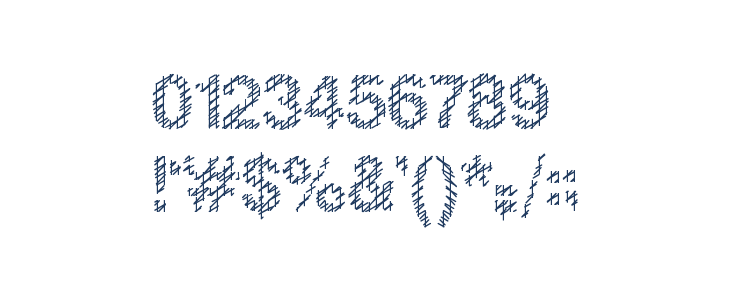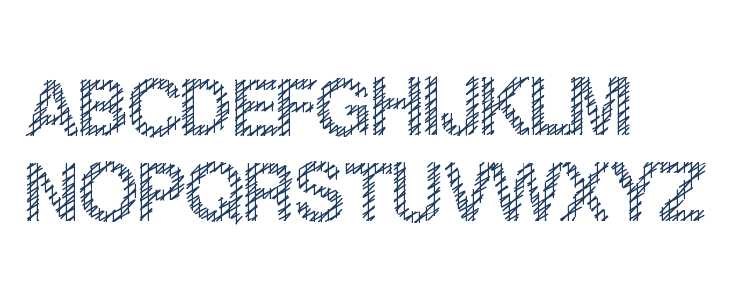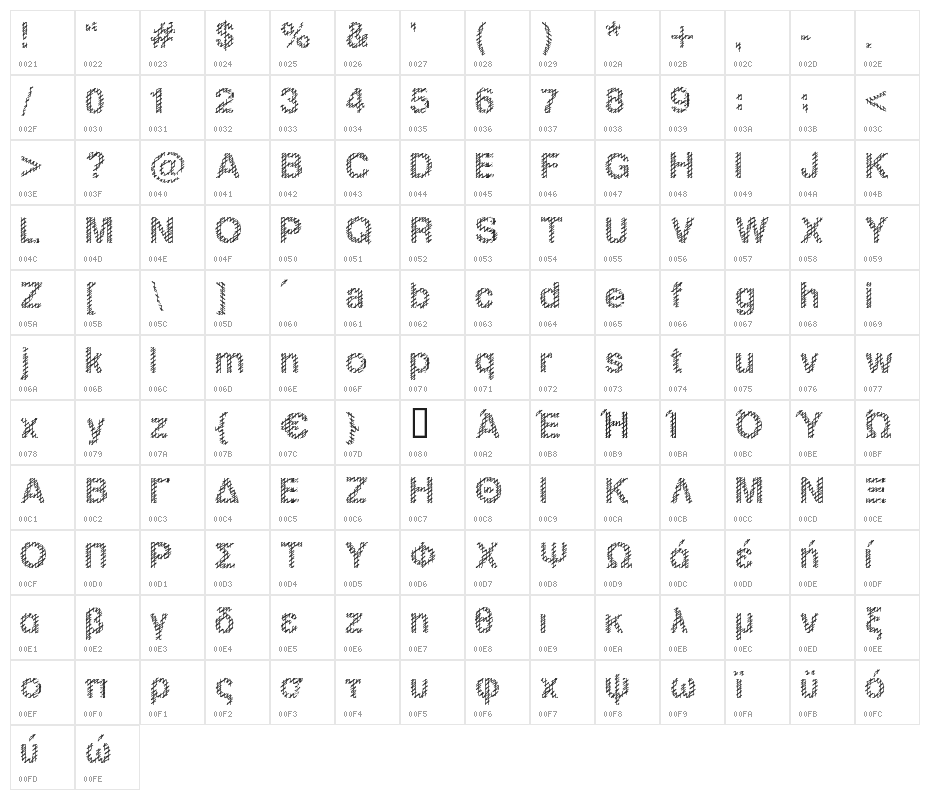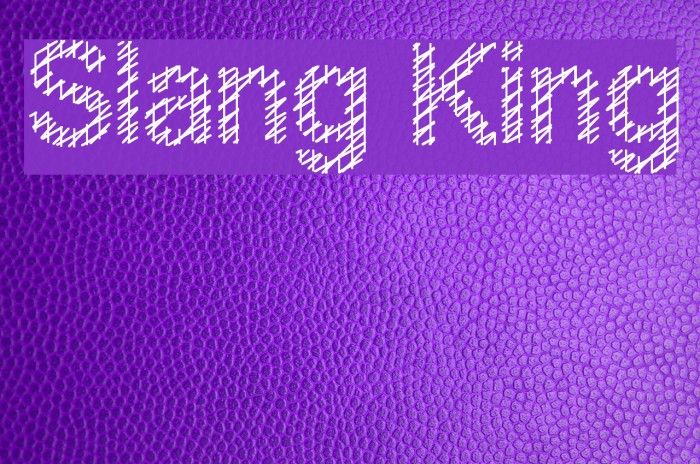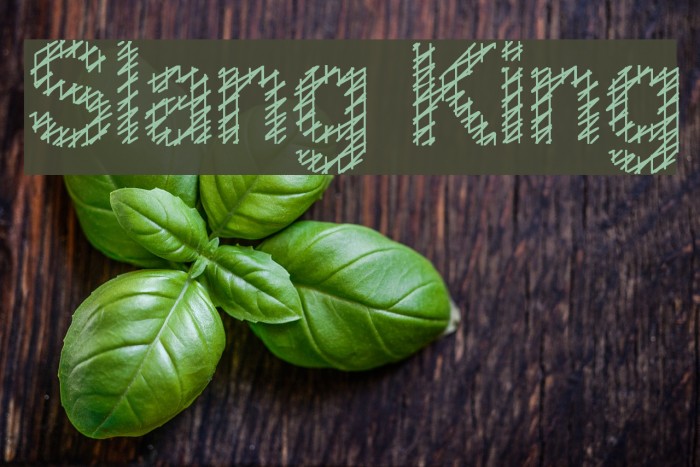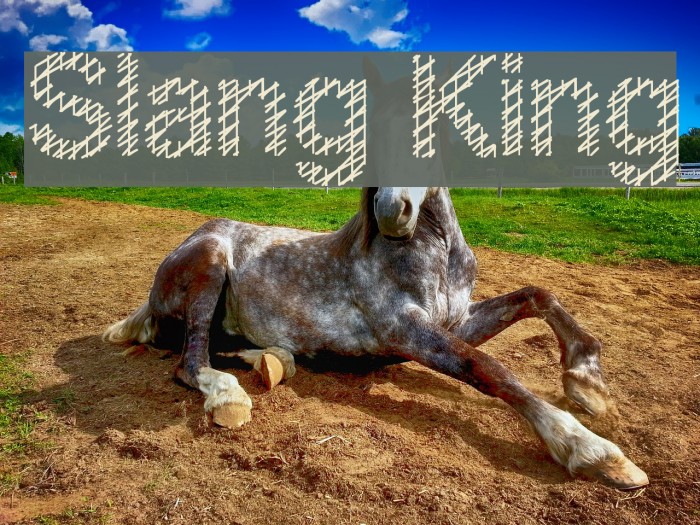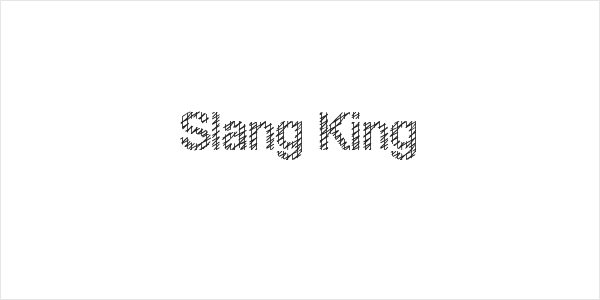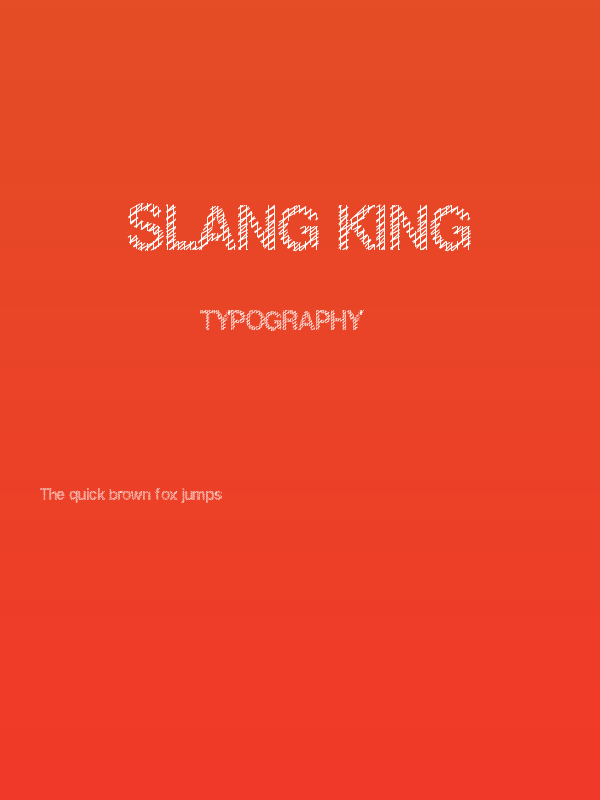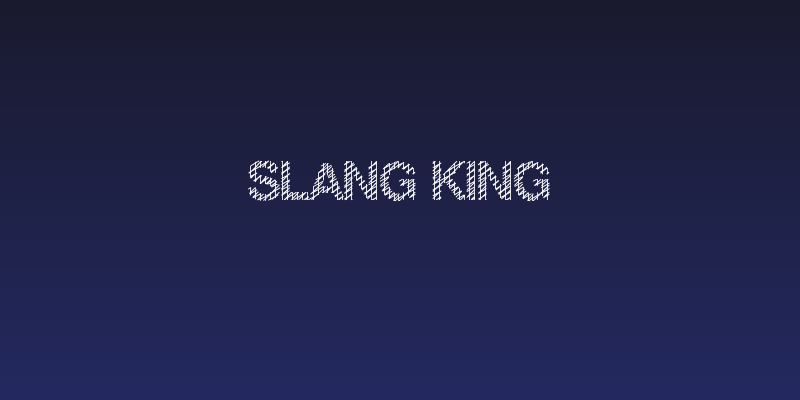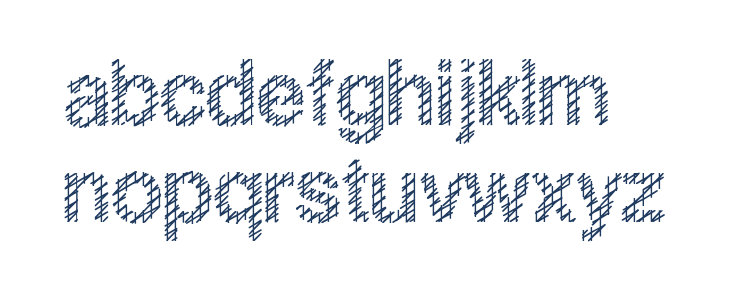
Slang King Font
Slang King Description
This font features a unique, hand-drawn style with a crosshatch pattern filling each character. The letters are uppercase and lowercase, with numerals and special characters, all maintaining a consistent textured appearance. The design gives off a playful and artistic vibe, making it stand out with its intricate detailing. The strokes are uniform in width, contributing to a cohesive look across all characters. This font is ideal for projects that require a creative and unconventional touch, such as artistic posters, unique branding, or eye-catching headlines.
| Proposed Projects | Ideal for artistic posters, unique branding, and eye-catching headlines. |